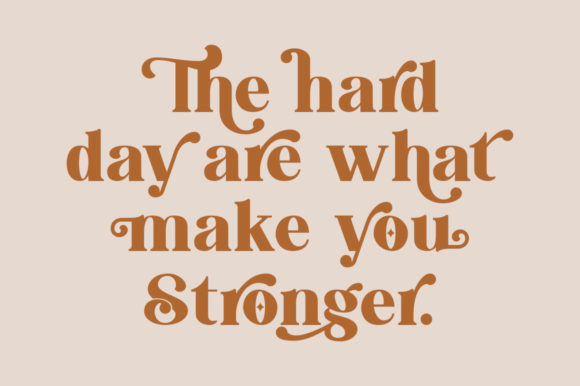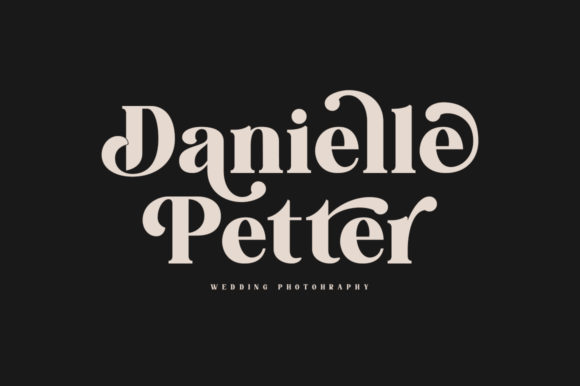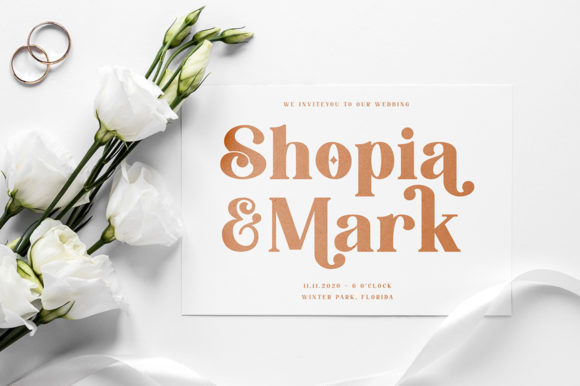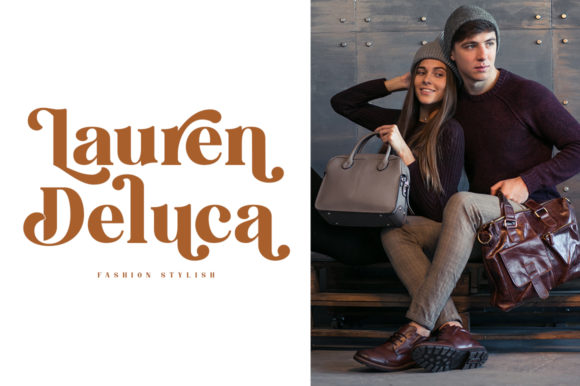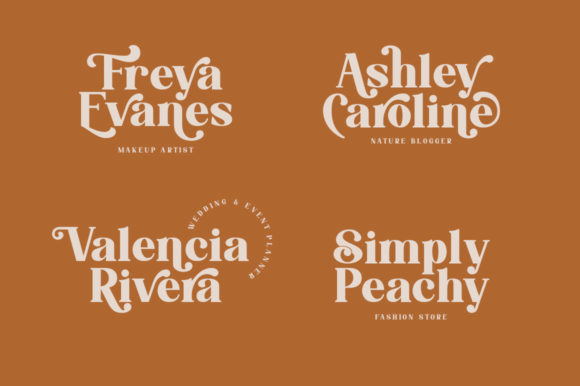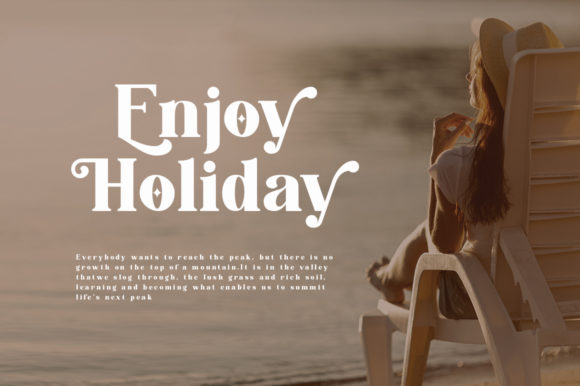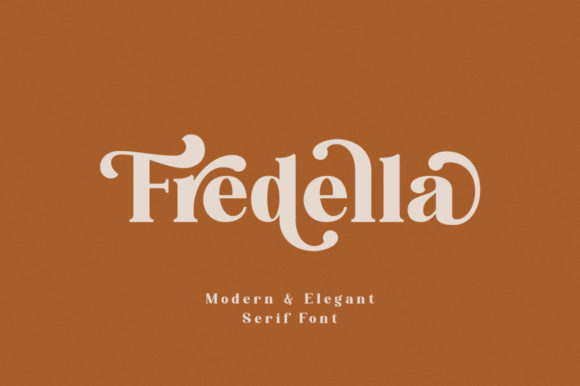
Introducing Fredella Font: Elevate Your Designs with Classic Elegance
Are you looking for a font that exudes sophistication and timelessness? Look no further than Fredella Font, a classic and elegant serif font that is sure to elevate your designs to the next level. With its beautiful alternates and swashes, Fredella Font is the perfect choice for designers and crafters who want to add a touch of luxury to their work.
What Makes Fredella Font Stand Out?
Fredella Font is a versatile and feature-rich font that offers a range of benefits for designers. Here are just a few of the key features that make it stand out:
- Classic and Elegant Design: Fredella Font features a traditional serif design that is both classic and elegant. Its timeless look makes it perfect for a wide range of design projects, from logos and branding to packaging and editorial design.
- Great Alternates and Swashes: One of the standout features of Fredella Font is its range of beautiful alternates and swashes. These add a touch of elegance and sophistication to your designs, making them truly stand out.
- Alternate Glyphs and Ligatures: In addition to its alternates and swashes, Fredella Font also features a range of alternate glyphs and ligatures. These add an extra layer of depth and interest to your designs, making them even more engaging and effective.
Fredella Font is the perfect choice for designers and crafters who want to add a touch of elegance and sophistication to their work. Whether you’re working on a logo, branding project, or editorial design, Fredella Font is sure to impress. Its classic design and range of features make it a versatile font that can be used in a wide range of contexts.
Why Choose Fredella Font?
With so many fonts on the market, it can be hard to know which one to choose. Here are just a few reasons why Fredella Font stands out:
- High-Quality Design: Fredella Font is designed to the highest standards, with a focus on elegance and sophistication.
- Versatile: Fredella Font can be used in a wide range of design projects, from logos and branding to packaging and editorial design.
- Unique and Memorable: With its range of alternates and swashes, Fredella Font is sure to make your designs stand out and be remembered.
How to Use Fredella Font
Using Fredella Font is easy. Here are a few tips to get you started:
- Experiment with Alternates and Swashes: Don’t be afraid to try out different alternates and swashes to add interest and depth to your designs.
- Use it for Logos and Branding: Fredella Font is perfect for logos and branding projects, where its classic and elegant design can really shine.
- Pair it with Other Fonts: Fredella Font pairs well with a range of other fonts, so don’t be afraid to experiment and find the perfect combination for your design.